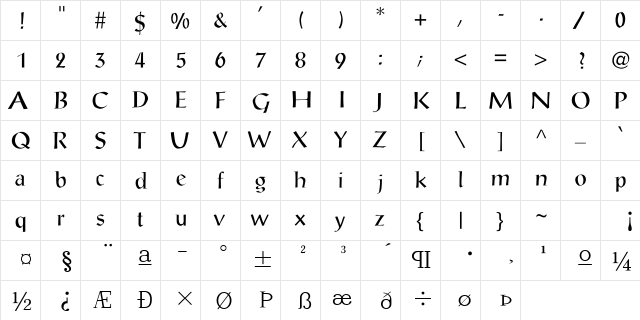
Design Context for ״� Typeface
״� offers clean, dependable letterforms without strong stylistic allegiance, making it a practical choice for designers who need flexibility.